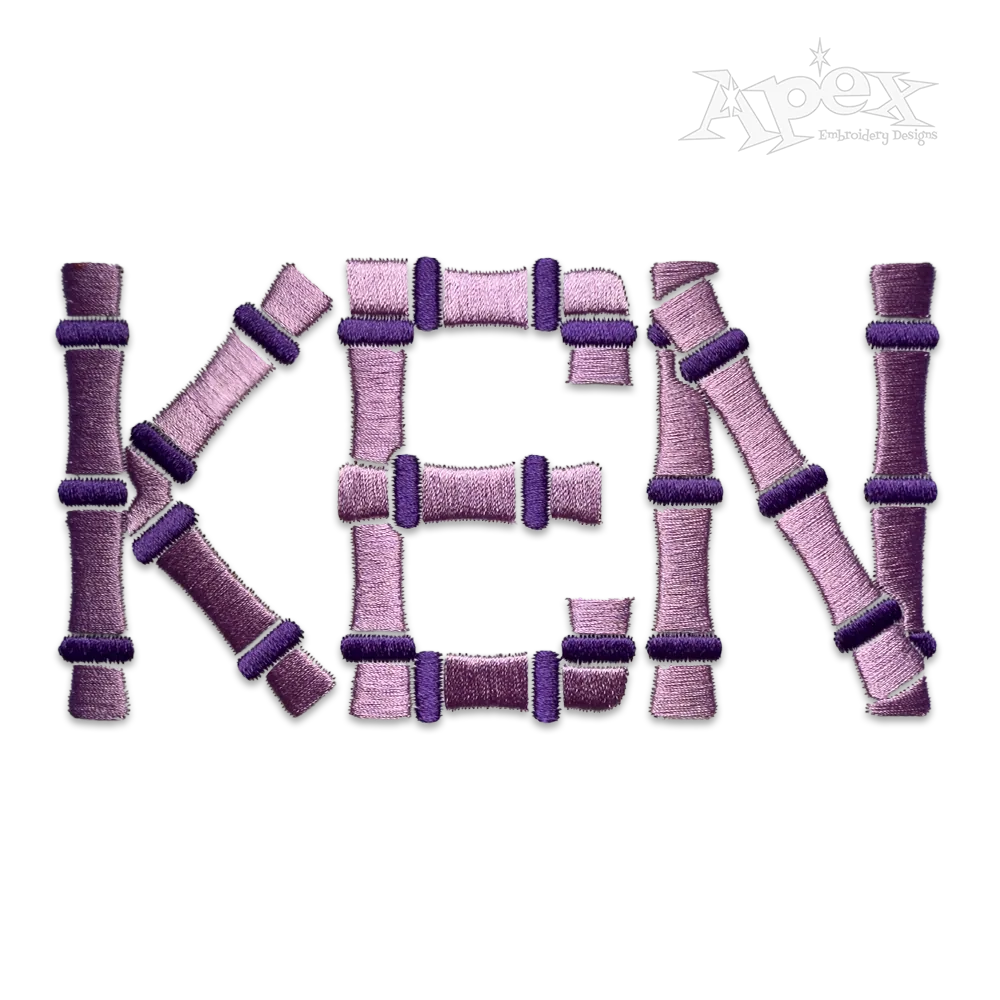
Bamboo Style Embroidery Font
Rooted in the timeless romance of Chinoiserie and vintage coastal aesthetics, the Bamboo Style Embroidery Font captures the graceful, organic architecture of living cane. Conceived for stitchers who appreciate classical motif design, this typography transforms structural bamboo stalks into exquisite monograms. Each letter is composed with a distinct two-color construction that mimics the delicate interplay of light and shadow across natural bamboo nodes. The finished stitch-out conveys a tactile, sculpted presence that elevates fabric into a tailored work of art, reminiscent of Palm Beach retreats and sunlit garden verandas.
Project Ideas for Bamboo Style Embroidery Font
- Luxury Table Linens: Frame hemstitched linen cocktail napkins and crisp dinner runners with bespoke two-color initials for botanical dinner parties.
- Bespoke Resort Wear: Embellish relaxed linen shirts, cabana sets, tunic collars, and sun hats with personalized coastal branding.
- Heirloom Bedding & Guest Suites: Transform crisp percale pillowcases, shams, and waffle-weave bath robes into five-star hospitality suites.
- Bridal & Destination Gifting: Personalize bridesmaid pool bags, silk travel jewelry cases, and bridal party robes for tropical and garden weddings.
- Tailored Canvas Goods: Elevate heavy-duty boat totes, tennis covers, and golf towels with crisp, dimensional collegiate-inspired crests.
- Corner Diagonal: Position 1.5 to 2 inches from the hemstitched edge of square cocktail napkins at a 45-degree angle to showcase the letterform naturally when draped.
- Shirt Cuffs & Collar Tips: Utilize the petite 0.75-inch height centered upon shirt cuffs or subtly placed upon a collar wing for understated, bespoke tailoring.
- Center Chest Crests: For resort button-downs and polo tops, align the 1.0-inch or 1.5-inch letterform precisely 7 to 8 inches down from the shoulder seam and centered with the placket.
- Framed Border Centerpieces: Combine individual letters within circular bamboo rings or delicate leafy wreaths for an ornate, heritage medallion look on decorative pillows.
Bamboo Style Embroidery Font Craft & Letterform Details
Digitizing botanical letterforms demands a delicate equilibrium between botanical realism and structural stitch integrity. Rather than relying on simple outline drawings, this alphabet features individually sculpted segments that honor the anatomy of natural culms and jointed nodes. The dual-color configuration separates the primary body of the reed from its raised nodal rings and shadowed contours, producing authentic depth straight from your embroidery needle.
Every branch, curve, and joint is mapped with directional satin stitch paths that follow the natural grain of bamboo stalks. Smooth underlay architecture creates a firm foundation that prevents stitches from sinking into plush textiles, while calculated pull compensation guarantees that the two-color elements align crisply without awkward gapping or bunched overlaps. The resulting embroidery delivers a touchable, hand-carved relief that honors both heritage craftsmanship and modern embroidery performance.